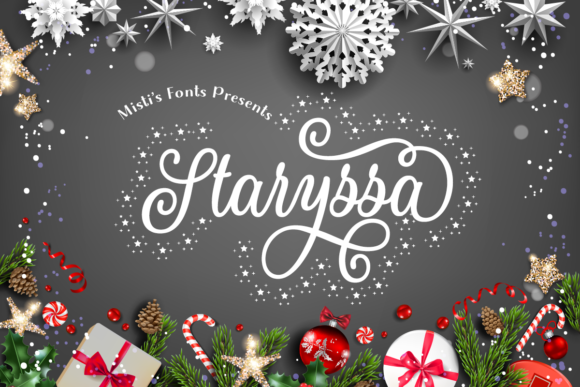
Prepare yourself to be dazzled by Staryssa, the most captivating calligraphy script font that will transform your creative projects into starry masterpieces. Designed by the talented Misti, Staryssa is not just a font; it's a celestial journey waiting to be explored.
Unleash your imagination and let the stars guide your designs as you craft enchanting greeting cards that twinkle with festive cheer this Christmas. Staryssa's graceful strokes, adorned with delicate stars, will make your Christmas wishes shine brighter than the North Star.
Picture this: As your loved ones open their cards, a cascade of stars dances across the page, carrying your heartfelt messages of joy and warmth. The shimmering stars, delicately entwined within each letter, create an ethereal ambiance that captures the true spirit of the season.
But Staryssa's magic isn't limited to Christmas. Its versatility extends far beyond the holiday season, making it the perfect choice for an array of creative endeavors.
Envision your designs adorned with Staryssa's celestial charm. From enchanting invitations that sparkle like a starry night to mesmerizing logos that command attention, Staryssa will elevate your creations to new heights.
With its PUA encoding, Staryssa grants you effortless access to a treasure trove of glyphs and swashes, empowering you to add an extra layer of celestial enchantment to your projects.